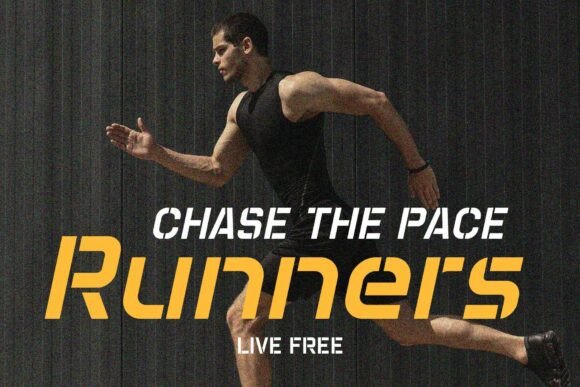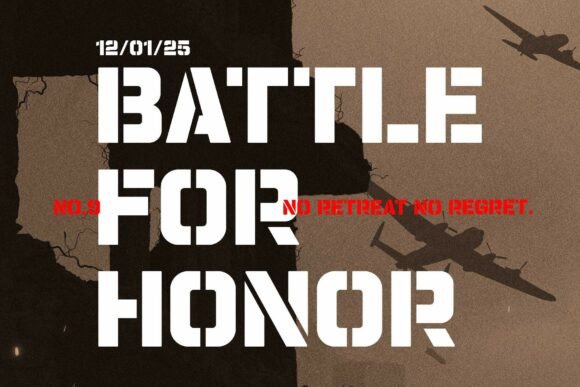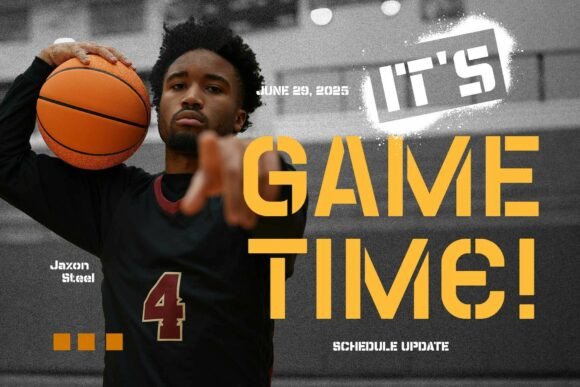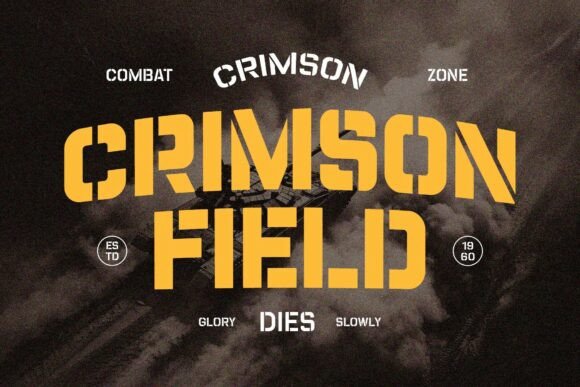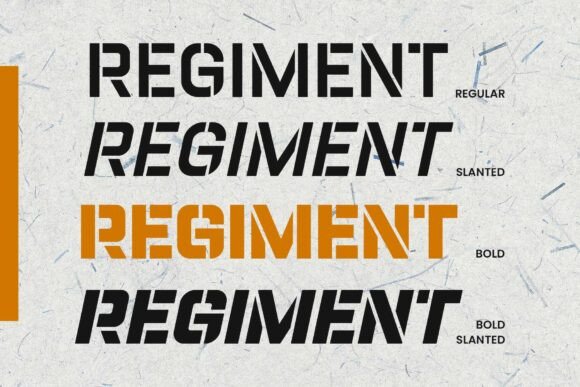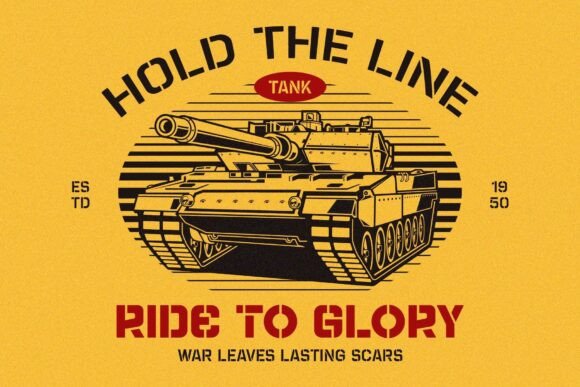
Introducing Champions Stencil: The Ultimate Font for Bold Designs
Are you looking for a font that exudes confidence, strength, and a touch of rugged charm? Look no further than Champions Stencil, a bold, modern stencil font that’s perfect for designers and crafters who want to make a statement. With its distinctive intersecting cuts, geometric construction, and versatile weight options, Champions Stencil is the ideal choice for a wide range of design projects.
The Perfect Blend of Sporty Energy and Military Precision
Champions Stencil seamlessly blends the energetic and dynamic feel of sports with the precision and structure of military design. Its bold, stencil-style lettering is reminiscent of athletic jerseys, military badges, and emblems, making it perfect for designs that require a strong, confident look. Whether you’re creating a logo, poster, or branding materials, Champions Stencil is sure to make a lasting impression.
Clean, Structured, and Confidently Rugged
One of the standout features of Champions Stencil is its geometric construction, which gives it a clean and structured look that’s both modern and sophisticated. At the same time, the font’s bold lines and intersecting cuts add a rugged, confident charm that’s hard to ignore. This unique combination of style and substance makes Champions Stencil perfect for designers who want to create bold, eye-catching designs that stand out from the crowd.
Versatile Options for Every Design Need
Champions Stencil comes in 2 weights, plus matching slanted styles, giving you a range of versatile options to suit every design need. Whether you’re creating a logo, poster, or social media graphic, you can choose the weight and style that best suits your project. This flexibility makes Champions Stencil a great addition to any designer’s font library.
So, what can you use Champions Stencil for? The possibilities are endless! Here are just a few ideas to get you started:
- Logos: Create a bold, memorable logo that stands out from the competition.
- Gaming: Add a touch of excitement and energy to your gaming designs, from posters to social media graphics.
- Posters: Create eye-catching posters that grab attention and make a statement.
- Stickers: Design stickers that are bold, colorful, and impossible to ignore.
- Emblems: Create custom emblems for sports teams, clubs, or organizations.
- Jerseys: Design custom jerseys with bold, confident typography.
- Badges: Create custom badges for events, organizations, or individuals.
- Branding: Use Champions Stencil to create a bold, consistent brand identity.
- Bold typographic statements: Make a statement with bold, eye-catching typography that’s sure to turn heads.
Champions Stencil is more than just a font – it’s a design tool that can help you elevate your designs and take them to the next level. With its bold, confident style and versatile weight options, Champions Stencil is the perfect choice for designers and crafters who want to create stunning, professional-grade designs. So why wait? Download Champions Stencil today and start creating bold, eye-catching designs that make a lasting impression.
Key Features of Champions Stencil
- Bold, modern stencil font with distinctive intersecting cuts
- Geometric construction for a clean and structured look
- 2 weights plus matching slanted styles for versatile design options
- Sporty energy and military precision for a unique look
- Perfect for logos, gaming, posters, stickers, emblems, jerseys, badges, branding, and bold typographic statements